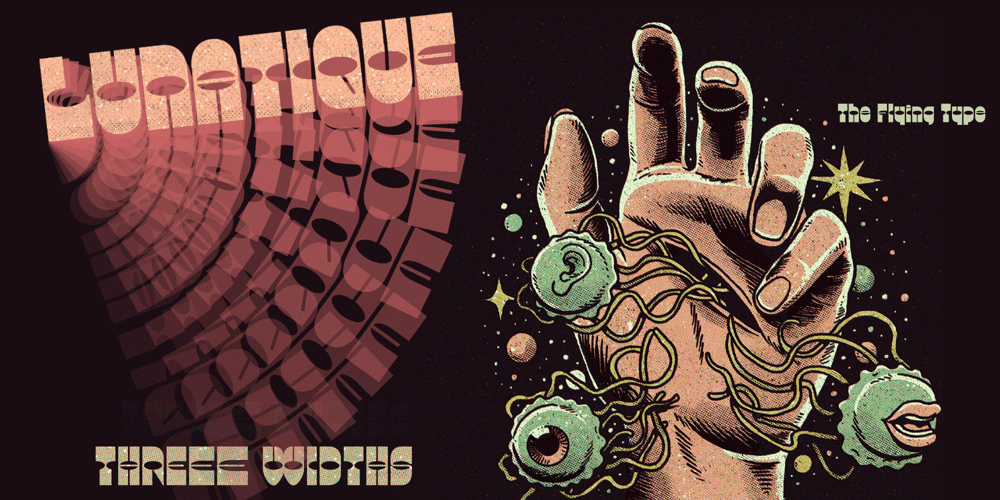
Lunatique
Lunatique font
Lunatique Font Family was designed by Erica Jung, Ricardo Marcin and published by The Flying Type. Lunatique contains 3 styles and family package options. Lunatique is a highly decorative font, available in three widths, with extended language coverage as well as alternates for some glyphs.This font is inspired by Lucky typeface, designed in 1972 by André Pless for the Mecanorma permanent type contest. The style was later released as Letter-Press transfer sheets.Transfer sheets… Sounds quite nice, definitely. But hey, these digital ones will be way smoother to use, you bet. Give them a go and make your text shine!